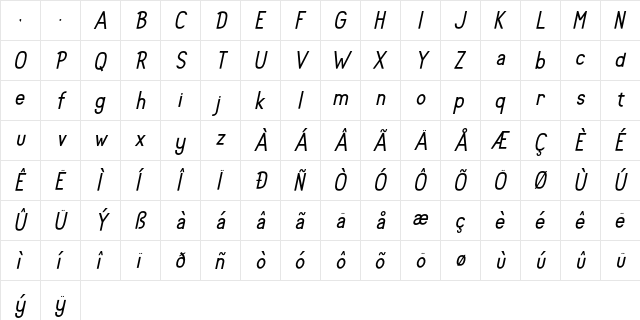
Rolhausen Slanted Regular
| Foundry | Patria Ari Typestudio |
| Designer | Patria Ari Wijonarko |
Design Context for Rolhausen Slanted Typeface
Rolhausen Slanted is a composed and adaptable typeface that performs quietly and consistently across a wide range of design contexts. The slanted form adds forward momentum and visual energy.